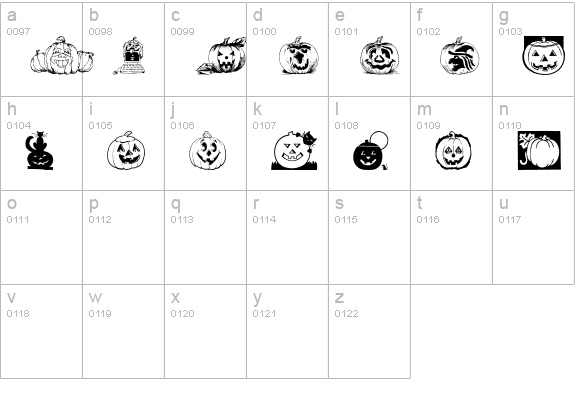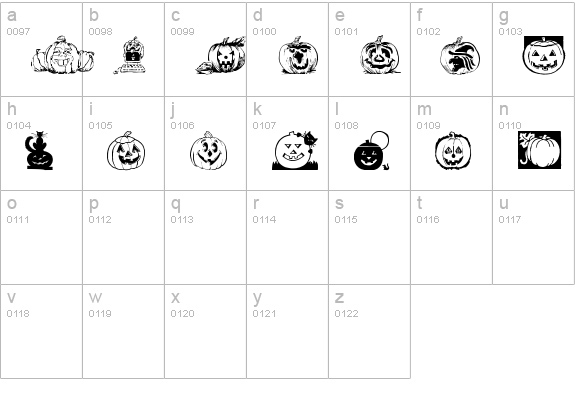
Punkins Font Details
Introducing Punkins font, a playful and whimsical typeface that exudes a charming and spirited vibe. With its unique hand-drawn design and quirky letterforms, Punkins adds a touch of fun and creativity to any project. This font is perfect for greeting cards, invitations, posters, and more, where a touch of personality is needed. Best of all, Punkins font is available for free download at FontsMarket.com. Embrace your creativity and add a playful flair to your designs with this delightful font. Download Punkins today and let your imagination run wild!